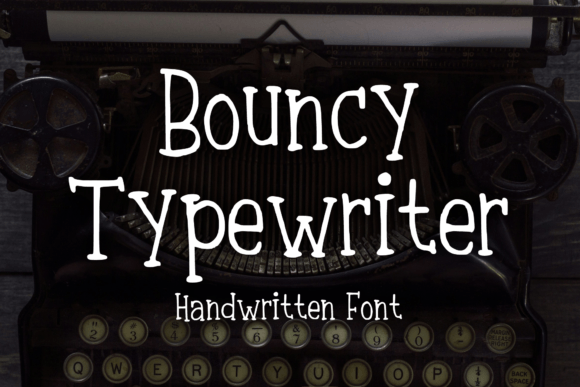
The Bouncy Typewriter Font: Elevate Your Designs with a Fun Twist
Have you ever been working on a design project, and suddenly, you feel like it’s just missing that extra oomph? I recall a recent experience where I was tasked with creating a sticker design for a client’s kids’ party. I had the concept, the colors, and the graphics, but something was off. That’s when I stumbled upon the Bouncy Typewriter font, and it completely transformed my design.
A Game-Changing Font: Bouncy Typewriter
Bouncy Typewriter is a fun, bouncy handwritten serif font that can elevate a wide range of design projects to the highest level. Its unique charm makes it perfect for various design ideas, such as stickers, t-shirt designs, amazing logo designs, magazine or book covers, comics, cartoon drawings, and many more. This font will add a super cool touch to your designs!
- ✨ Unique and playful design that adds a touch of whimsy to any project
- ✅ Highly versatile and can be used for a wide range of design projects
- ✅ Easy to read and understand, even in smaller font sizes
While Bouncy Typewriter is an excellent font, there are a few minor quirks to be aware of:
- ⚠️ Some letters may appear a bit irregular or uneven, which can be a deliberate design choice but might not appeal to everyone
- 🤔 Limited availability of alternative styles or variations, which might limit its use in certain projects
The Designer Inspiration Behind Bouncy Typewriter
The Bouncy Typewriter font was inspired by the classic typewriter fonts of the past, with a modern twist. The designer aimed to create a font that would add a touch of playfulness and whimsy to designs, while still being easy to read and understand. The result is a unique and versatile font that can be used in a wide range of design projects.
Q: What is the Bouncy Typewriter font best suited for?
A: Bouncy Typewriter is best suited for designs that require a playful and whimsical touch, such as stickers, t-shirt designs, logo designs, and more.
Q: Is Bouncy Typewriter easy to read?
A: Yes, Bouncy Typewriter is designed to be easy to read and understand, even in smaller font sizes.